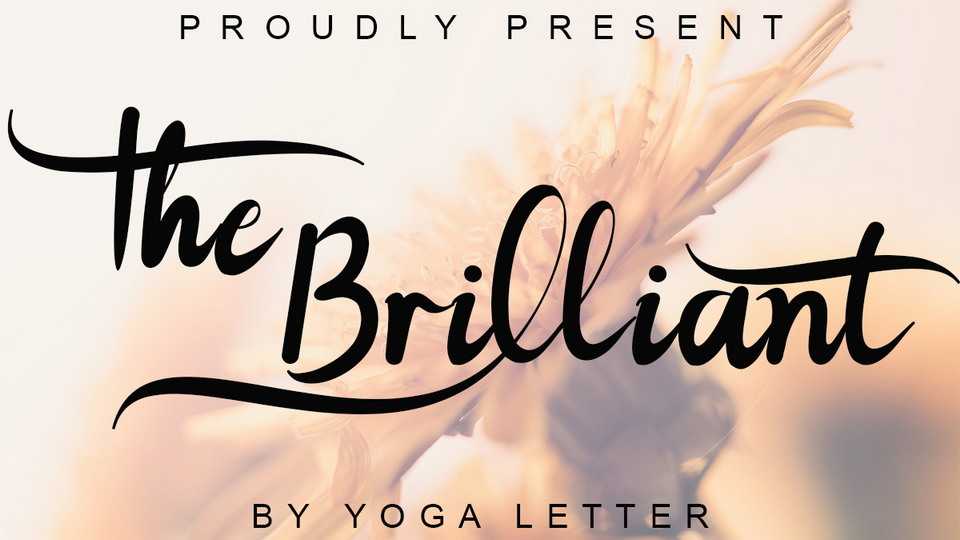
Download The Briliant font, a modern script typeface that is very unique and suitable for all purposes. The Briliant font can be used for travel stories, romantic quotes and more.